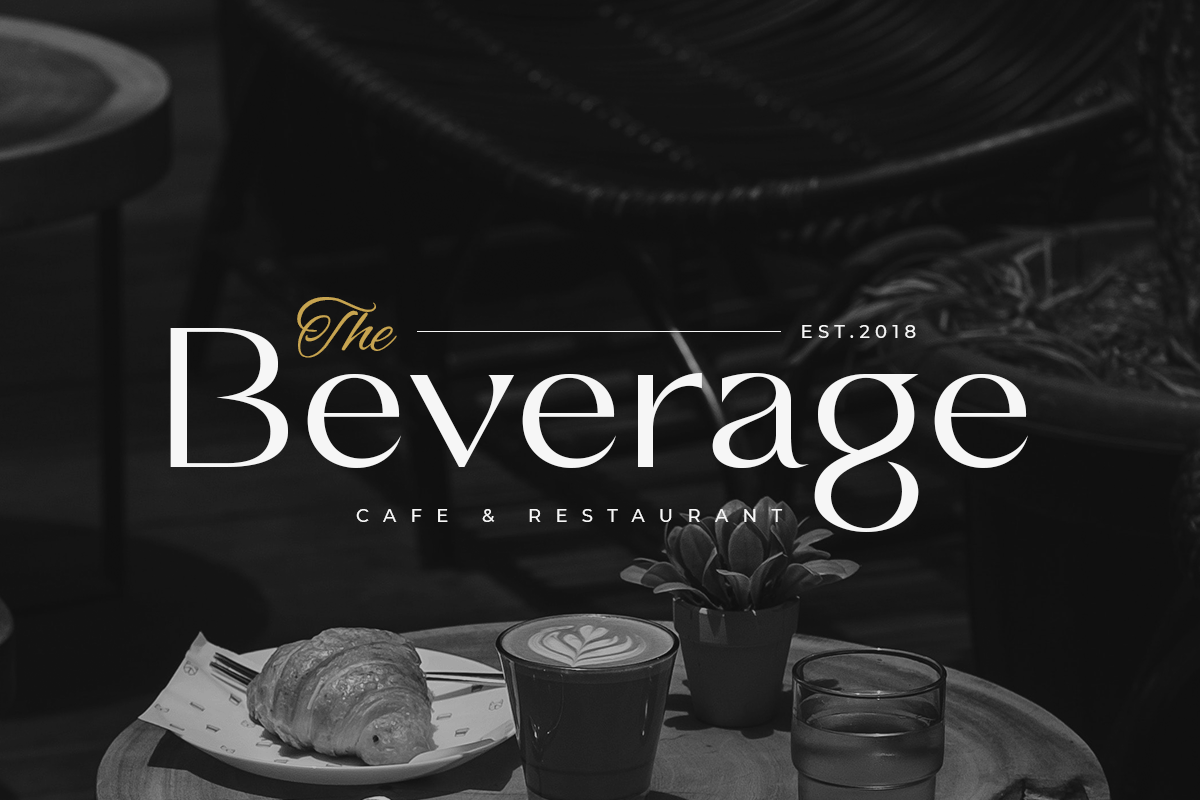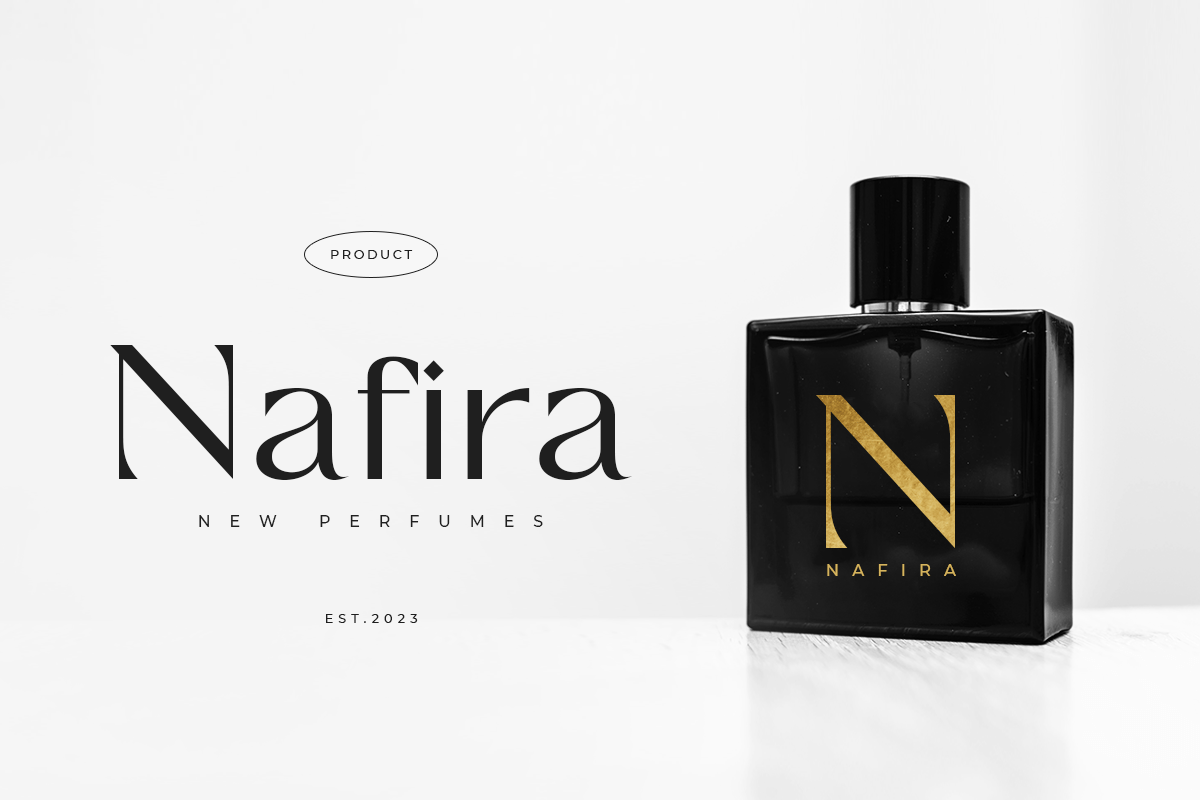
Top Luxury – Luxury Modern Classy Font
Top Luxury is a modern serif by HamzStudio, made specifically for luxury and fashion branding. The capitals are tall and slender with flared, wedge-like serifs, and the lowercase has a calm, open shape that reads well in a one-word logo such as the specimen’s “Nafira” perfume bottle.
Best uses for Top Luxury
• Perfume, cosmetics and jewellery logos
• Café, bakery and restaurant signage
• Fashion labels and clothing tags
• Hotel and spa branding
• Invitations and premium event materials
Top Luxury is light on detail, so it pairs well with an equally clean sans. Montserrat in wide-spaced capitals suits taglines like “Cafe & Restaurant”. For body copy, Manrope is modern and easy to read. A script accent can work too, but keep it to one or two words.
What free font is similar to Top Luxury?